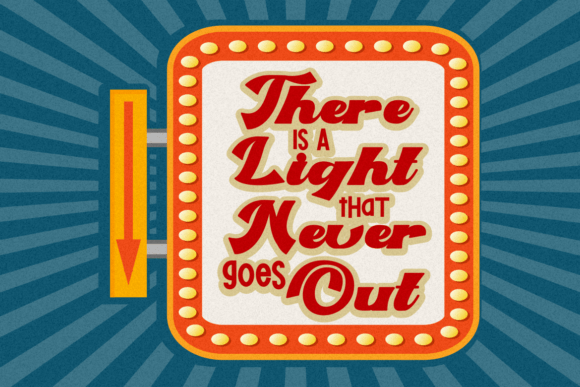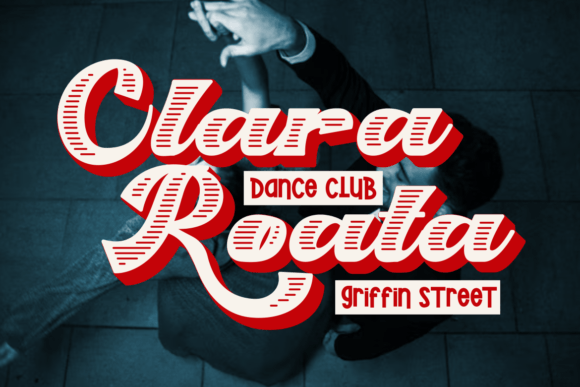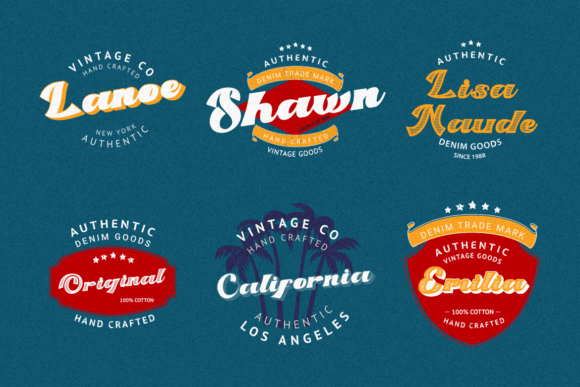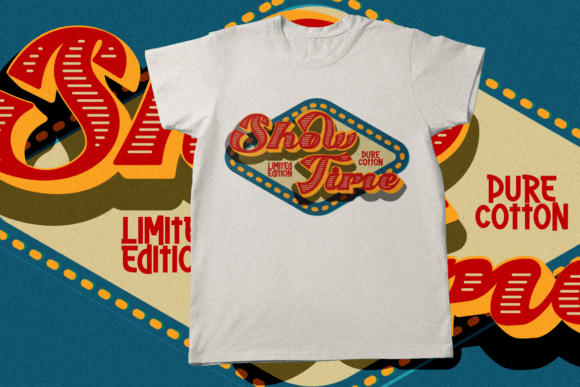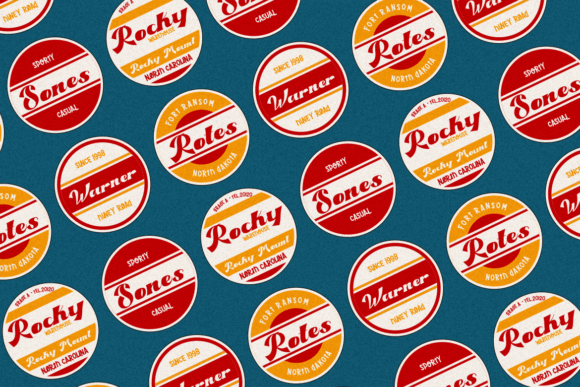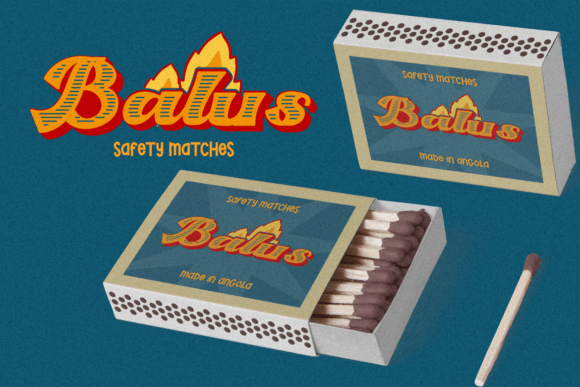
Introduction to Kasabina Font
Kasabina – Groovy Script Font is an eye-catching script typeface that beautifully captures the essence of boldness and retro style.
With an extensive array of alternative characters, it offers an abundance of design possibilities But what sets Kasabina apart is the additional layer font support, including line, outline, and shadow options, allowing you to create stunning effects and versatile combinations.
Key Features of Kasabina Font
Why Choose Kasabina Font?